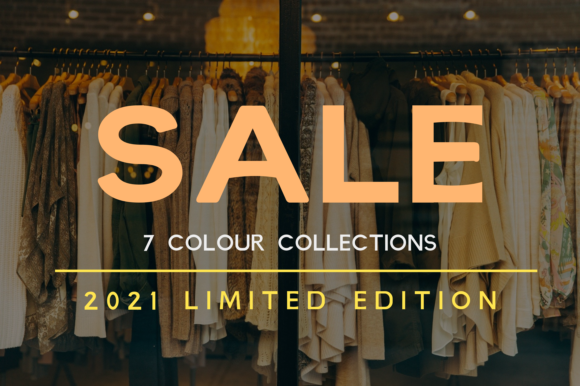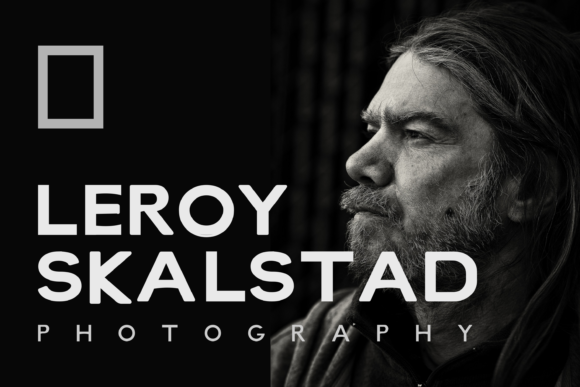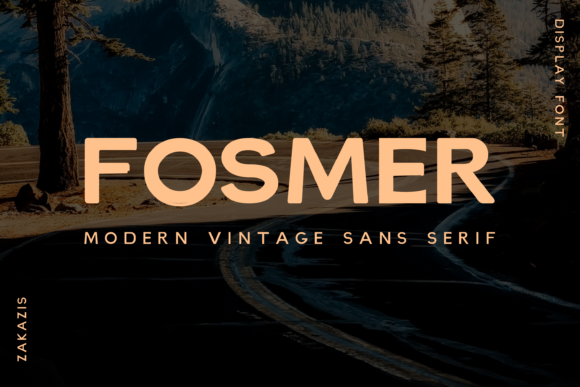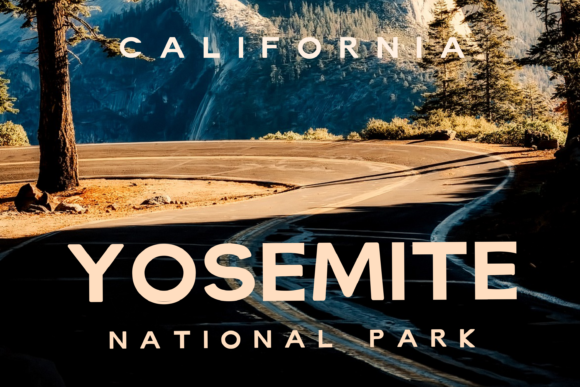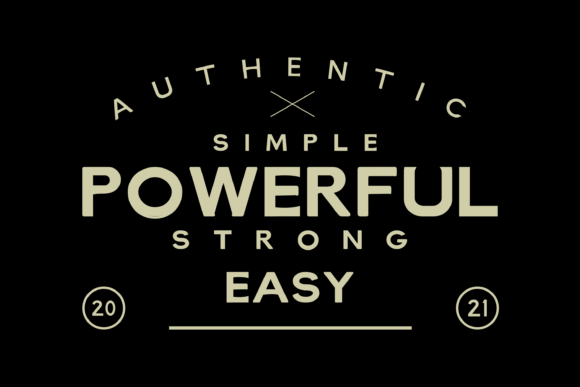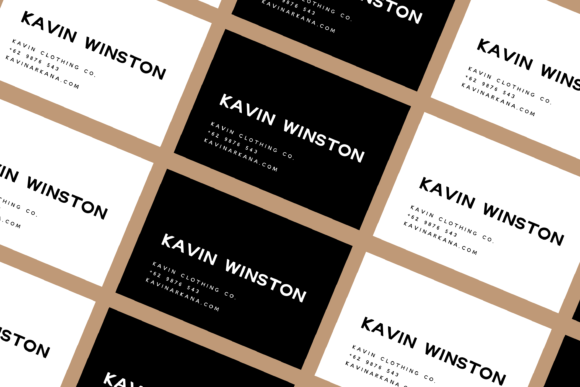
Introduction to Fosmer Font
Fosmer is a cool a neat display font.
Expertly designed to make your creation look out of this world, this font will look gorgeous on a variety of ideas .